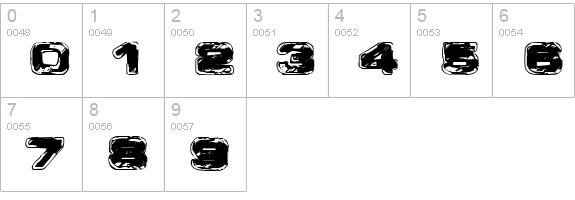
VTC CoppaKroma is a stunning display font that exudes elegance and sophistication. Its sleek and modern design makes it perfect for adding a touch of class to any project. The font features bold and sharp lines, creating a visually captivating effect that demands attention. With its unique and eye-catching letterforms, VTC CoppaKroma is sure to make a lasting impression. Whether you're designing a logo, creating a poster, or crafting a website, this font will elevate your work to new heights. One of the best things about VTC CoppaKroma is that it is free to use. Yes, you read that right – this incredible font is available for download at FontsMarket.com without any cost. This means that you can bring a touch of luxury to your designs without breaking the bank. So why wait? Head over to FontsMarket.com today and download VTC CoppaKroma for free. Elevate your designs with this elegant and stylish font and make a lasting impression on your audience.